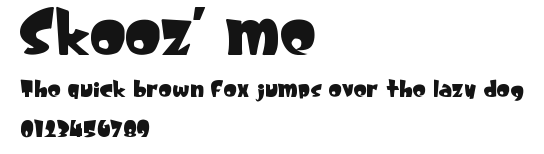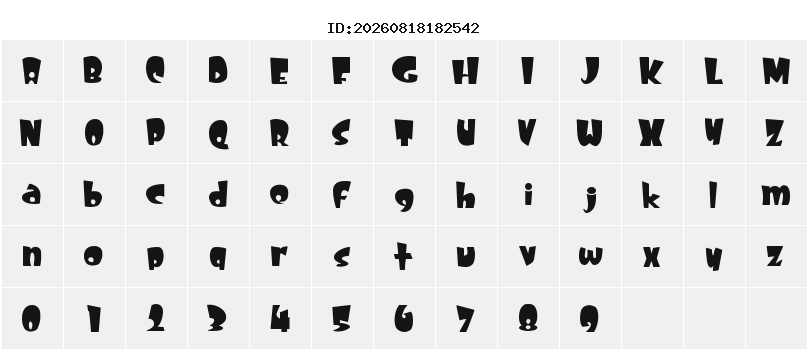
Skooz' me Preview
• Font Name: Skooz' me
• Font ID: Skooz' me
• Full Font Name: Skooz' me
• PostScript Name: Skooz'me
• Designer: Chris Brown
• Manufacturer: Chris Brown (visual design)
• Description: SKOOZ' ME is part of the SKOOZ' family. SKOOZ' YOU is the other font.
About Skooz' me.ttf